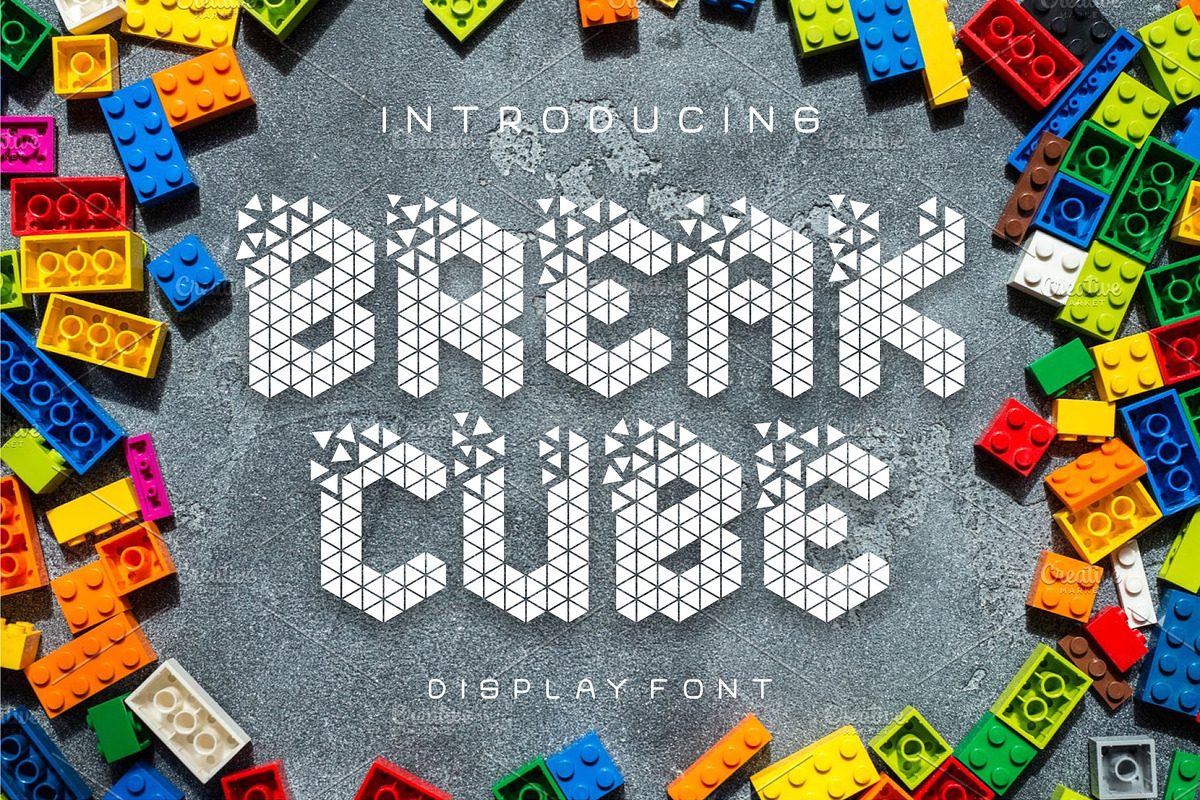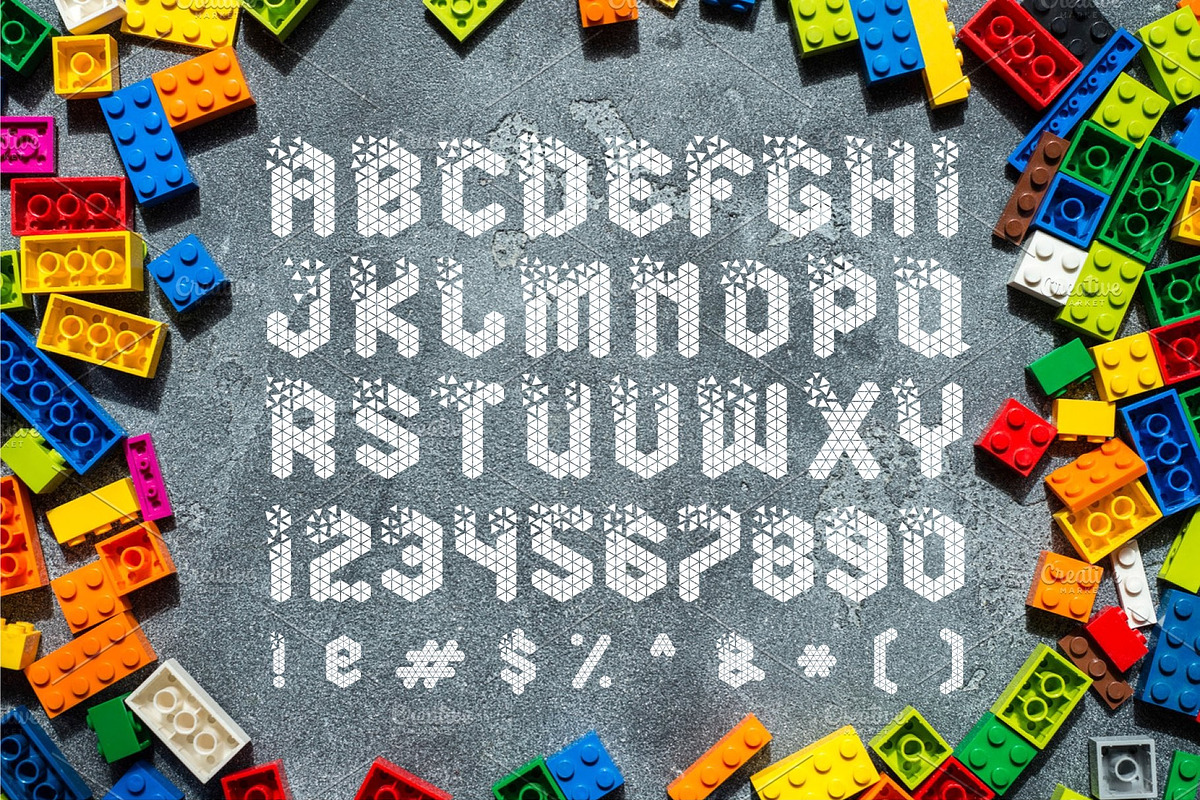
Break Cube Display Font
This Break Cube font very good for Logo / Display, very unique using triangle/cube/ diamond shape.
Break Cube Display Font by herulogo fits naturally into Branding, posters, packaging, typography.